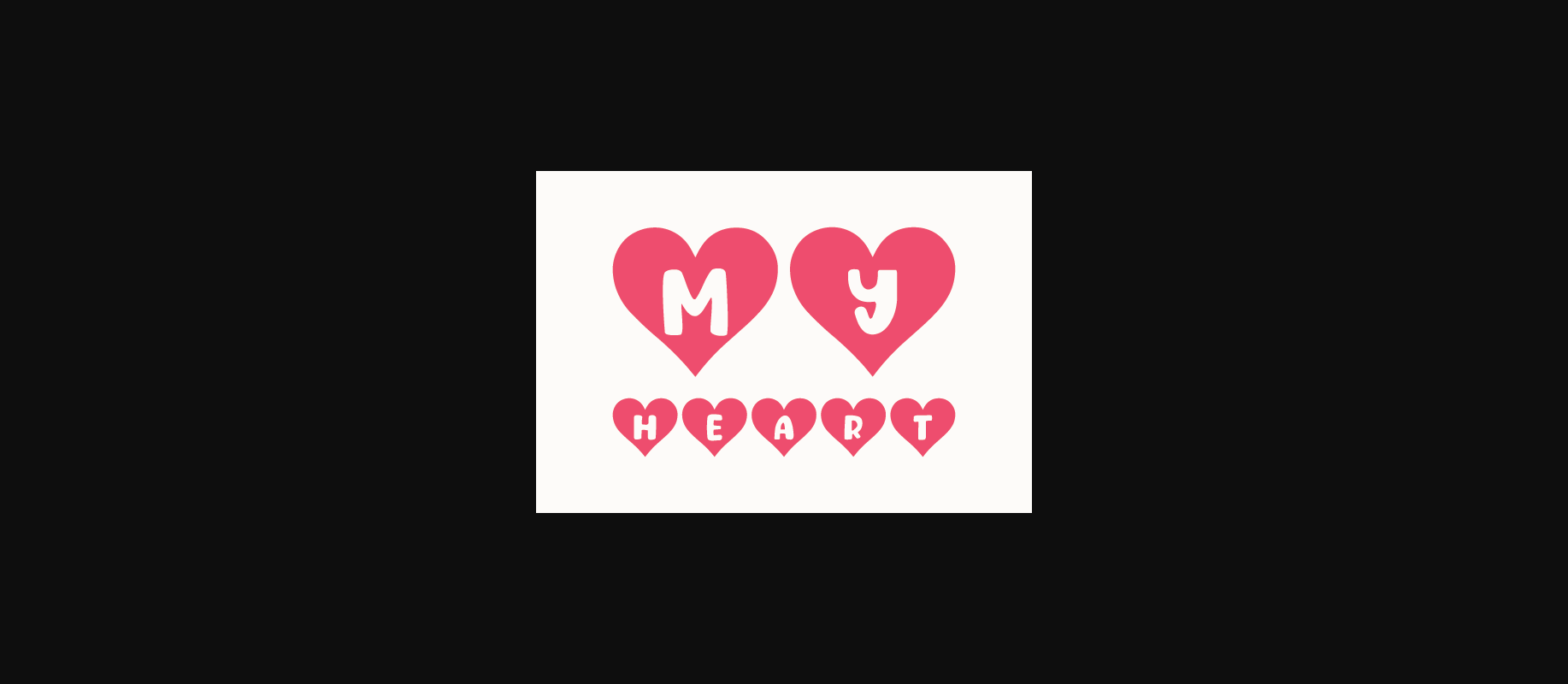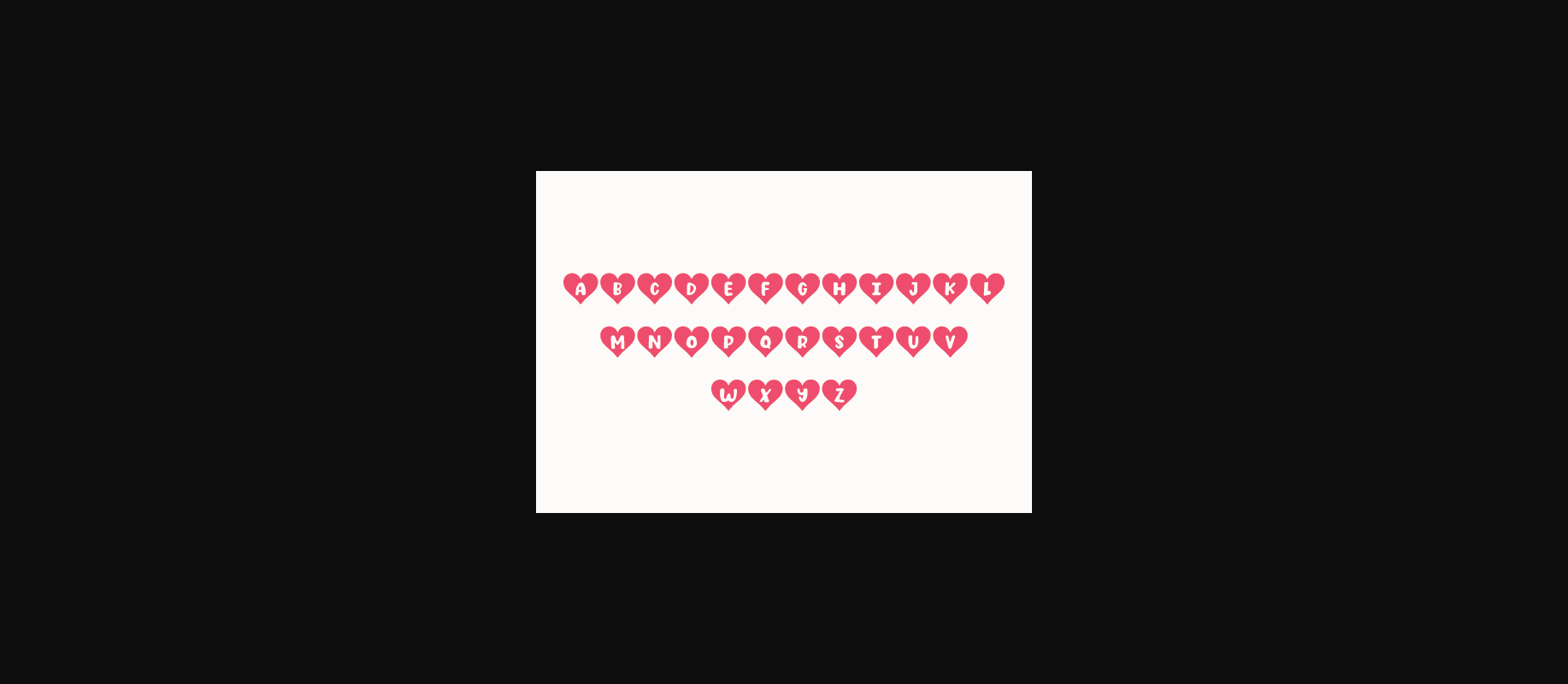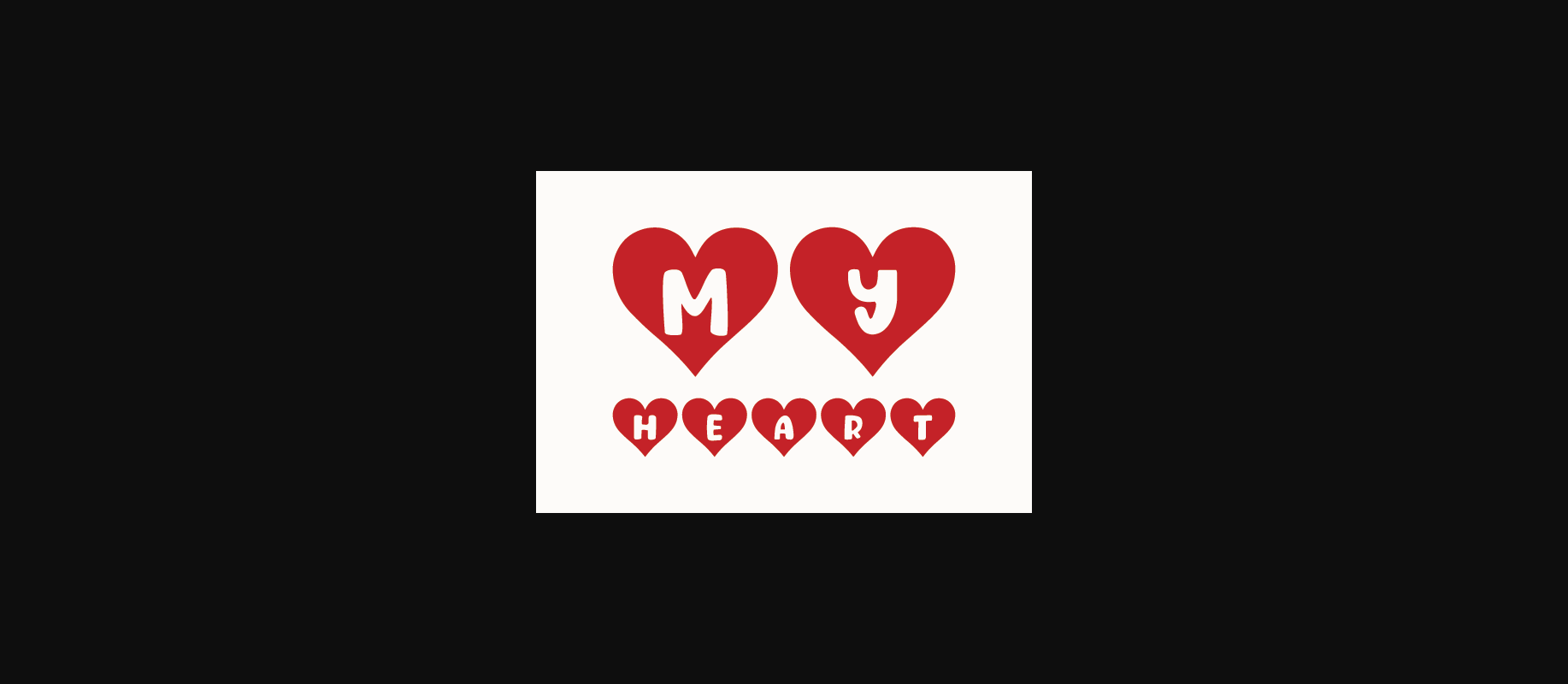
My Heart Font
About My Heart Font
My Heart font is a delightful all-caps typeface that embodies the festive spirit of the love season. Each letter is beautifully enclosed within a heart symbol, creating a charming and decorative effect. Use this font to add a touch of yuletide magic to your lovely cards, banners, and seasonal designs.